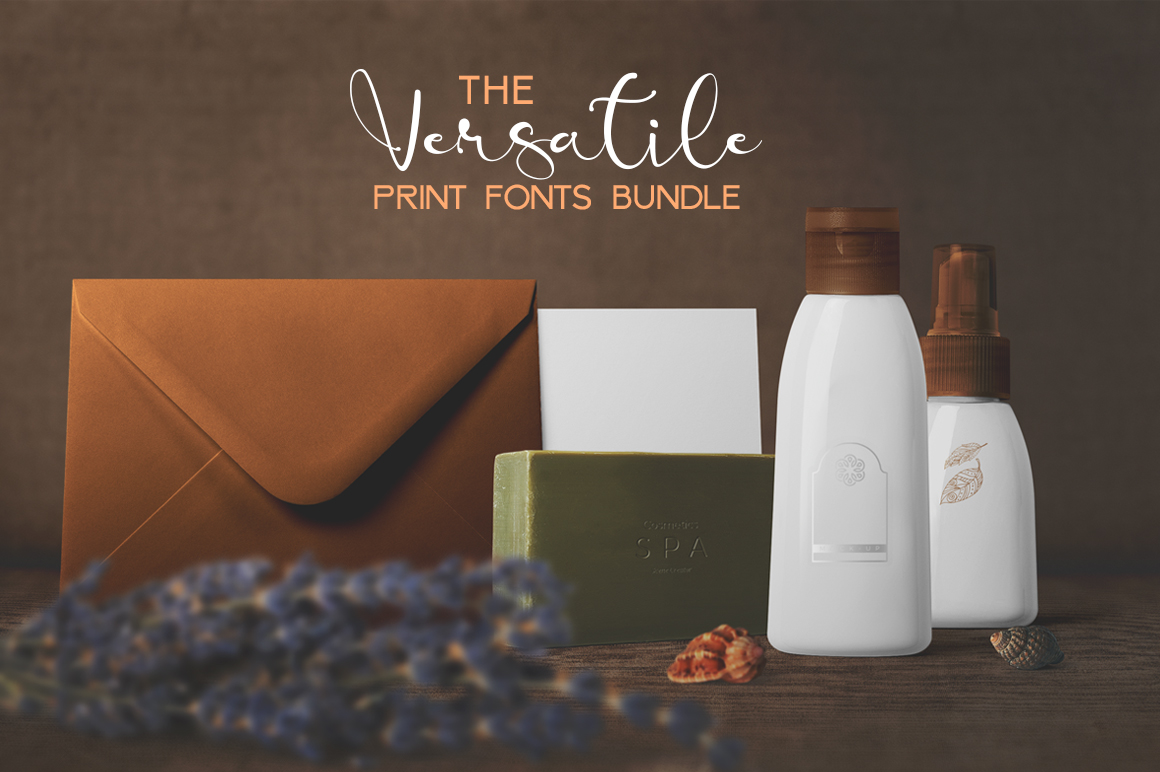
Take your print designs to the next level, with this massive collection of print fonts with multi-language support!
Here’s a bundle that everyone in the print media business should grab. 120 print fonts from 64 different font families, handpicked from some of the best designers across the globe.
Pink Script By Aldedesign
Pink Script is a fashionable and quirky new handwriting font script suitable for a variety of projects.
Stella By Good Java Studio
Stella is a fun and stylish font. This amazing font is suitable for banners, t-shirts, packaging, magazines, brochures, and much more.
Jennifer By Good Java Studio
Jennifer is a stunning signature font. It is perfect for fashion, logos, invitations, stationery, photography, watermarks, special events, etc.
Sportsman Block By Millieangelo
Sportsman Block is a modern, attitude driven athletic block typeface. Sportsman features higher crossbars, with slightly unorthodox character features.
My Autumn By Good Java Studio
My Autumn is a signature font with a handwritten touch. This font is perfect for invitations, stationery, wedding designs, social media posts, advertisements, etc.
Sandlot — 5 Vintage Athletic Fonts By Millieangelo
Sandlot is truly a representation of that attitude and energy. It’s scrappy, rough around the edges, and ready to rumble. Perfect for apparels, graphics, logos, and anything needing some ‘won’t take no mess’ attitude.
Intensity By Good Java Studio
Intensity font is an attractive handwritten font. It can be used for logos, invitations, stationery, wedding designs, social media posts, advertisements, etc.
Portland By Millieangelo
Portland is a clean, versatile sans-serif font inspired by the vintage theme. Portland is a perfect font for logos, display graphics, wedding invitations, etc.
Betterlove By Good Java Studio
Betterlove is a stunning handwriting script perfect for invitations, monograms, wedding, fashion, branding, etc.
Sumner Typeface By Millieangelo
Sumner is a soft edge, san-serif typeface built carefully for graphic designers. Delivered with both the Regular and Condensed versions, Sumner is the perfect typeface for any kind of project.
Uptown By Millieangelo